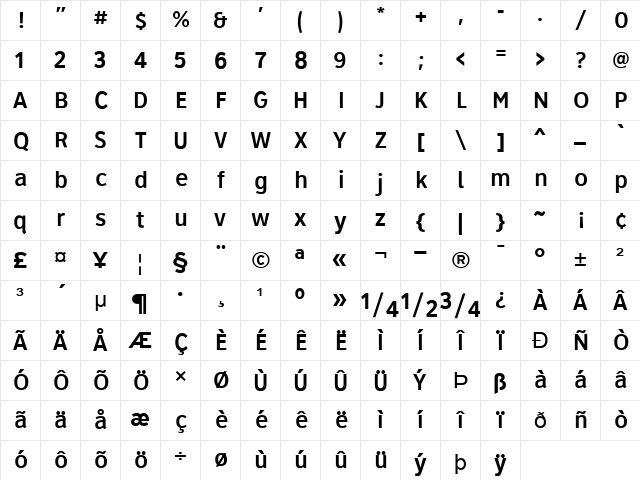
Complete Roadgeek 2005 Series 4W Regular glyph index. Displaying only characters natively supported by Roadgeek 2005 Series 4W Regular font.
Roadgeek 2005 Series 4W is a composed and adaptable typeface that performs quietly and consistently across a wide range of design contexts.